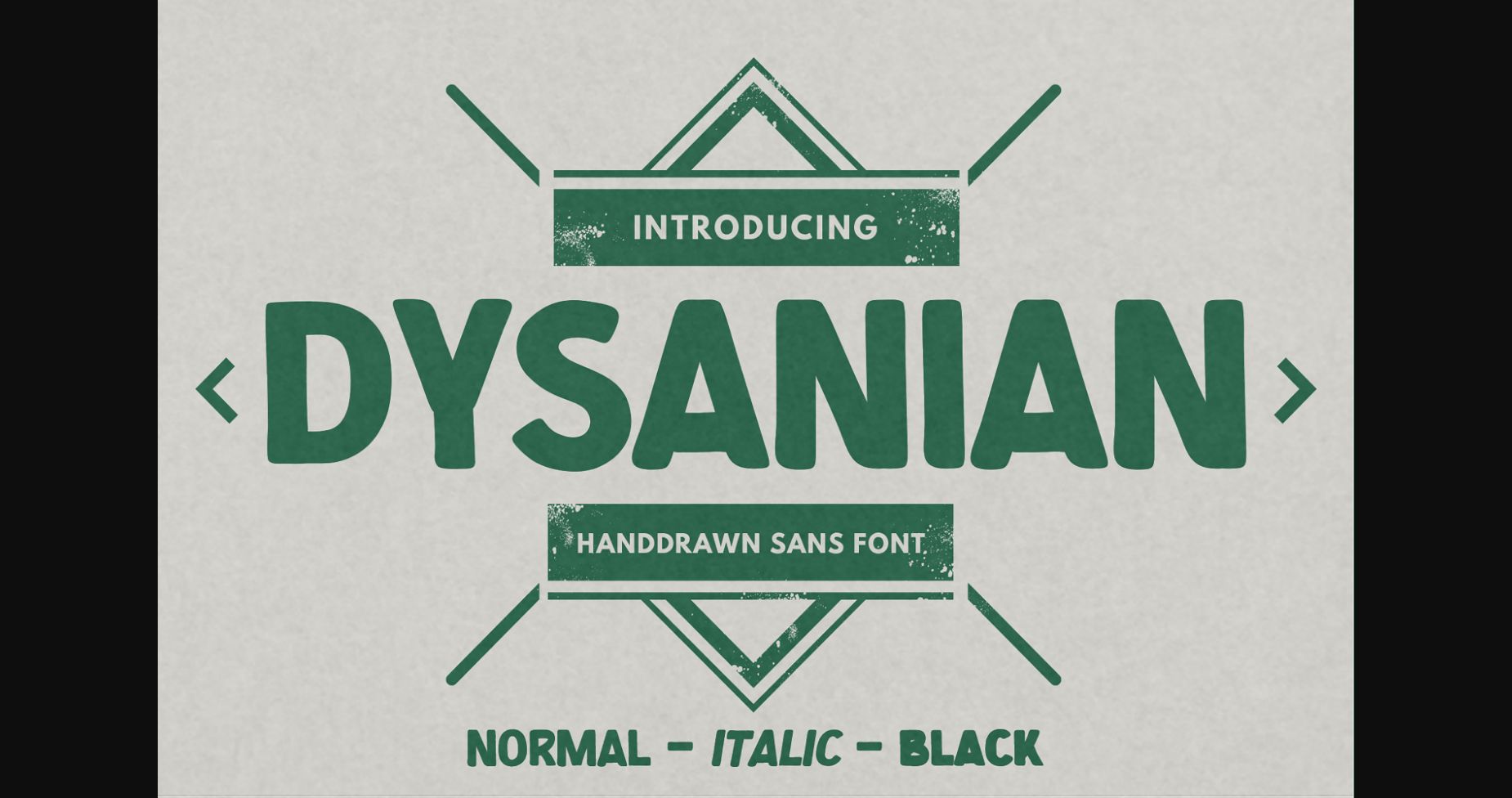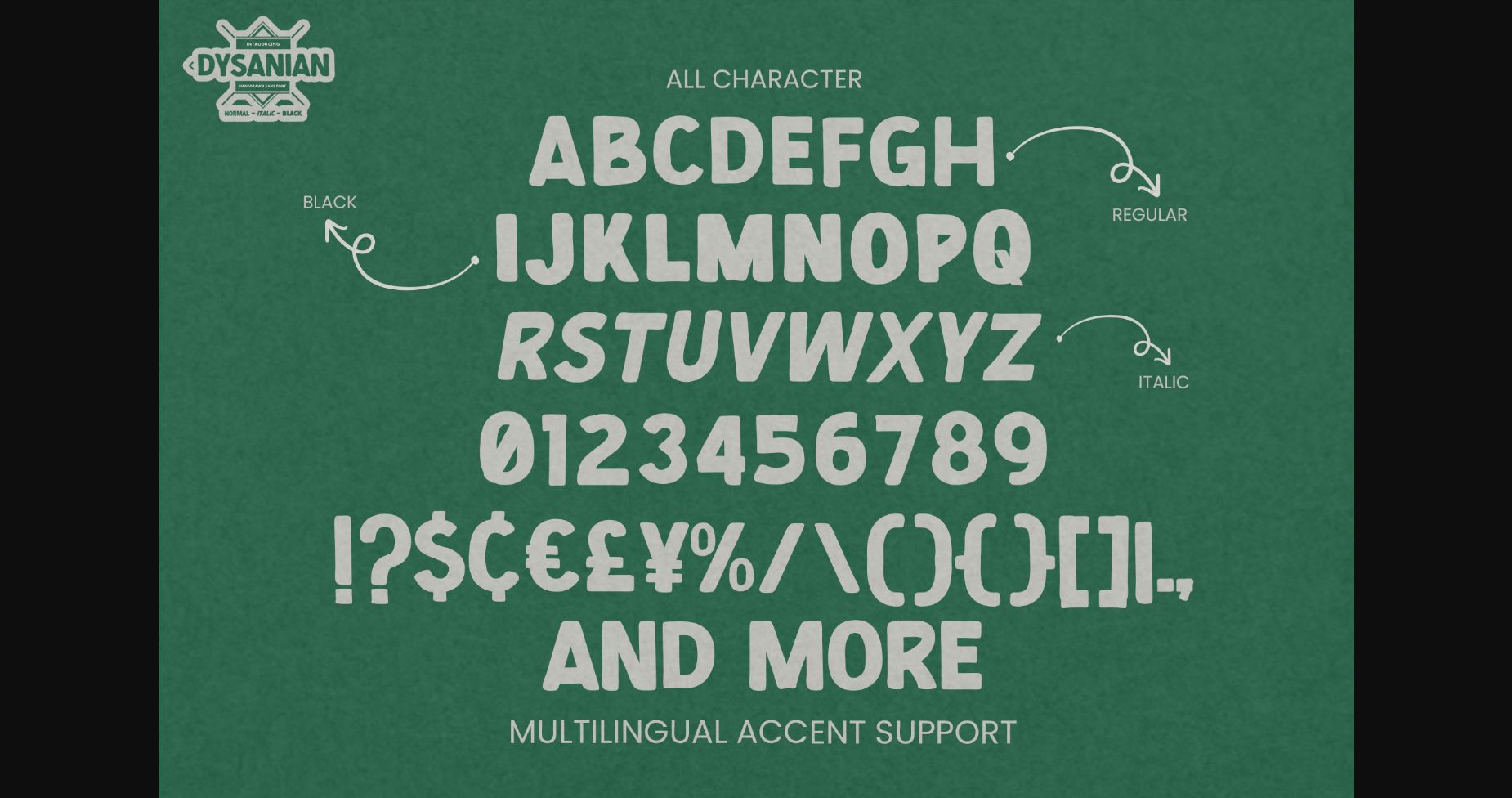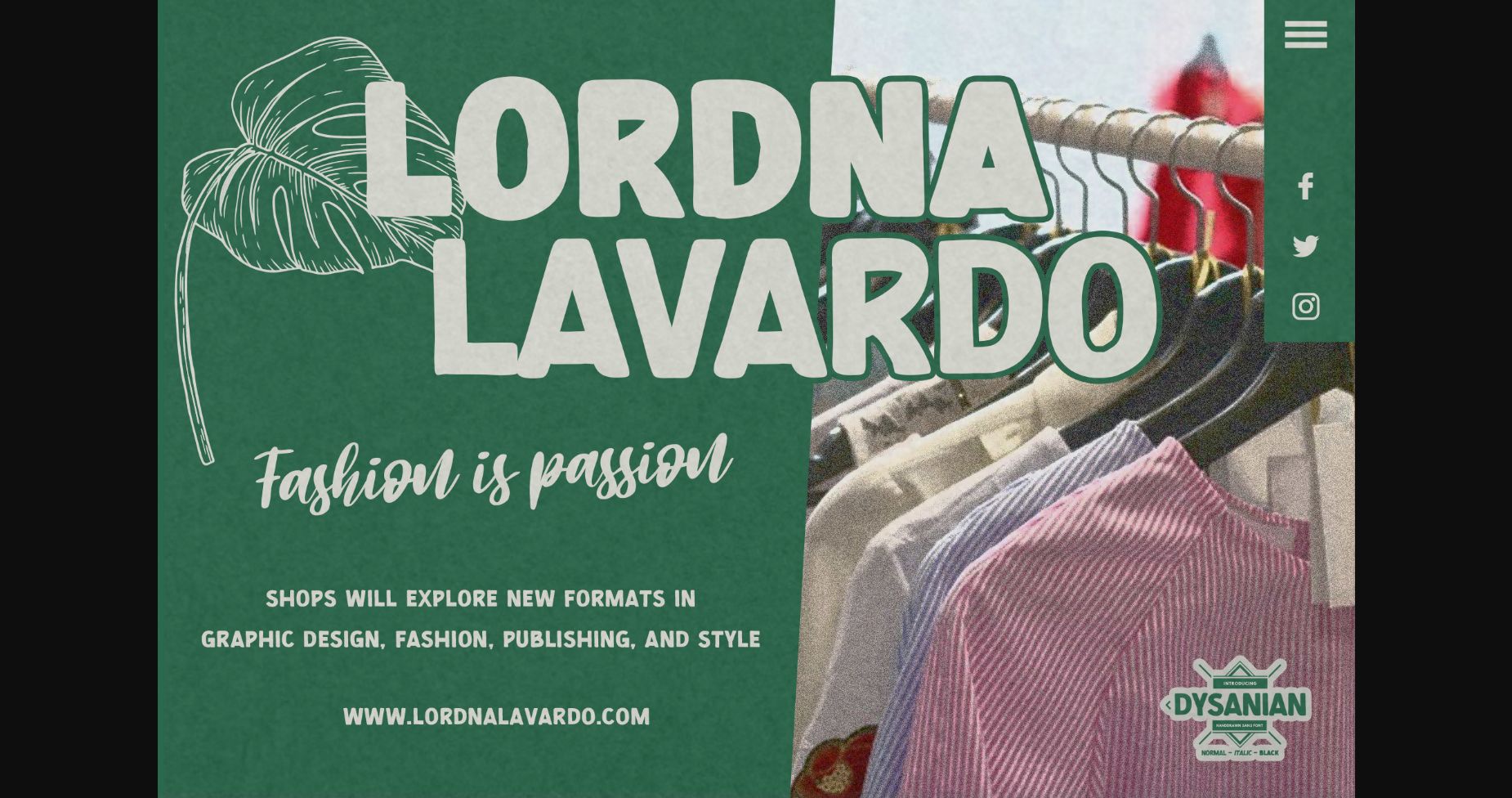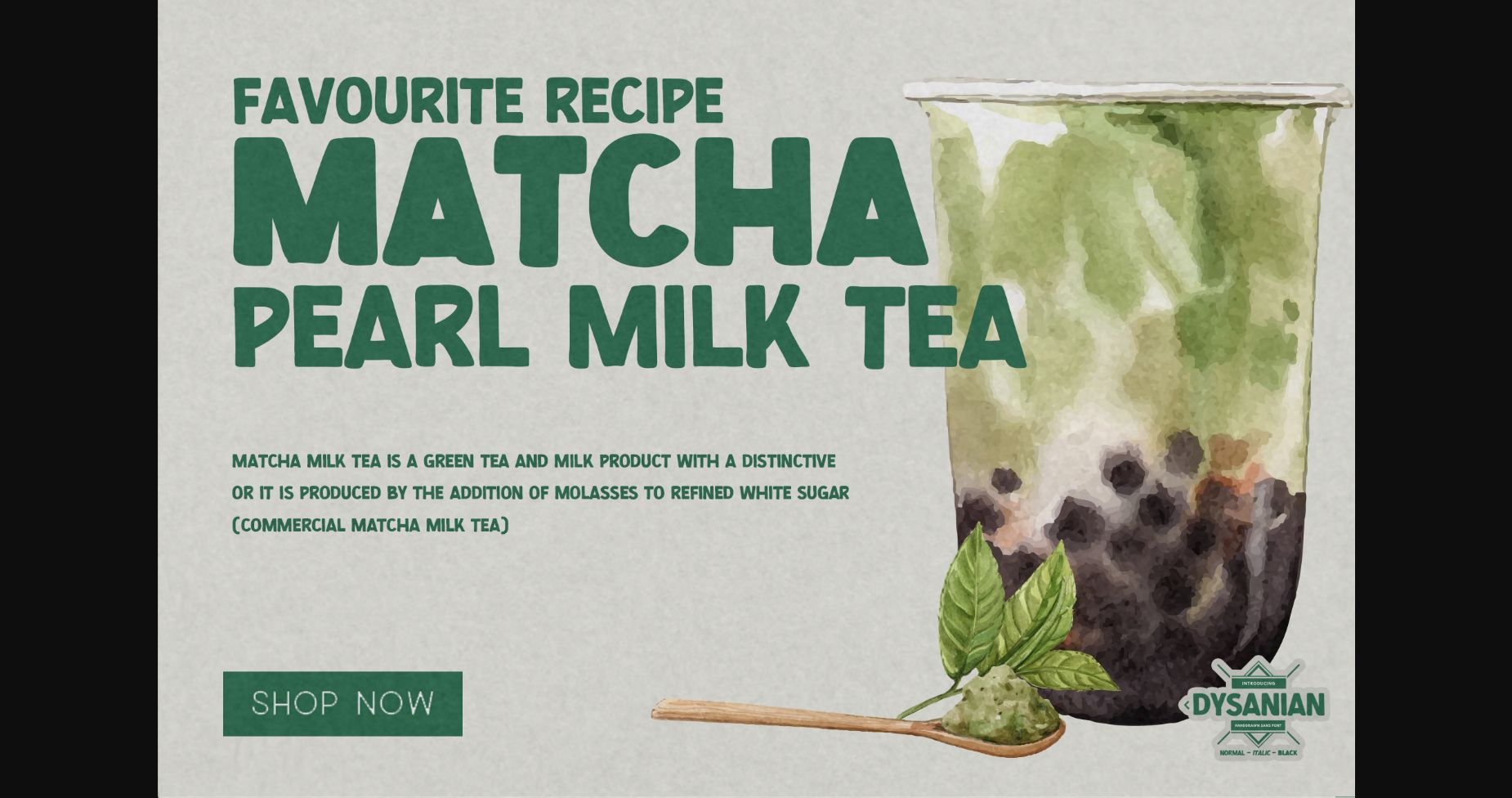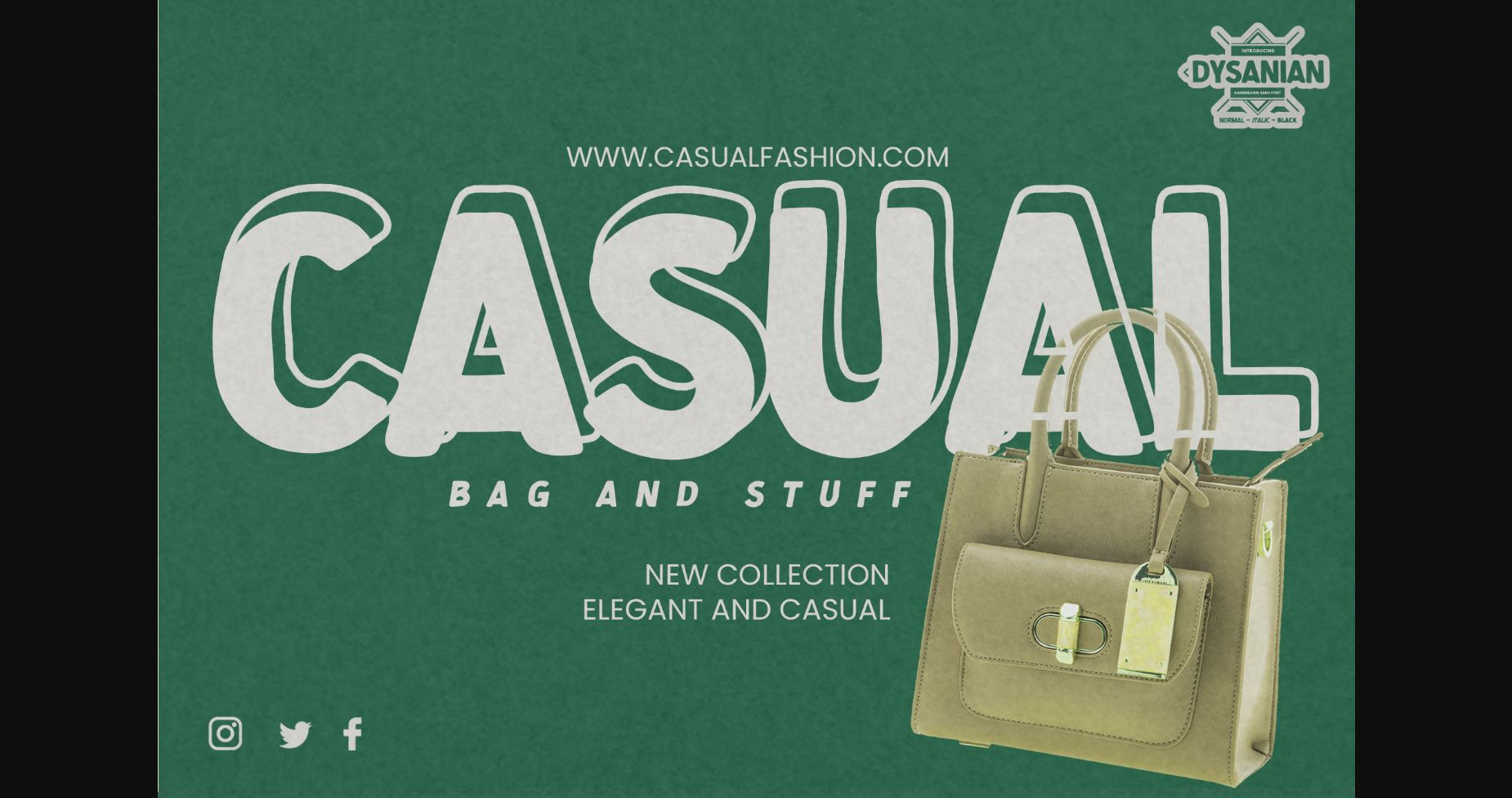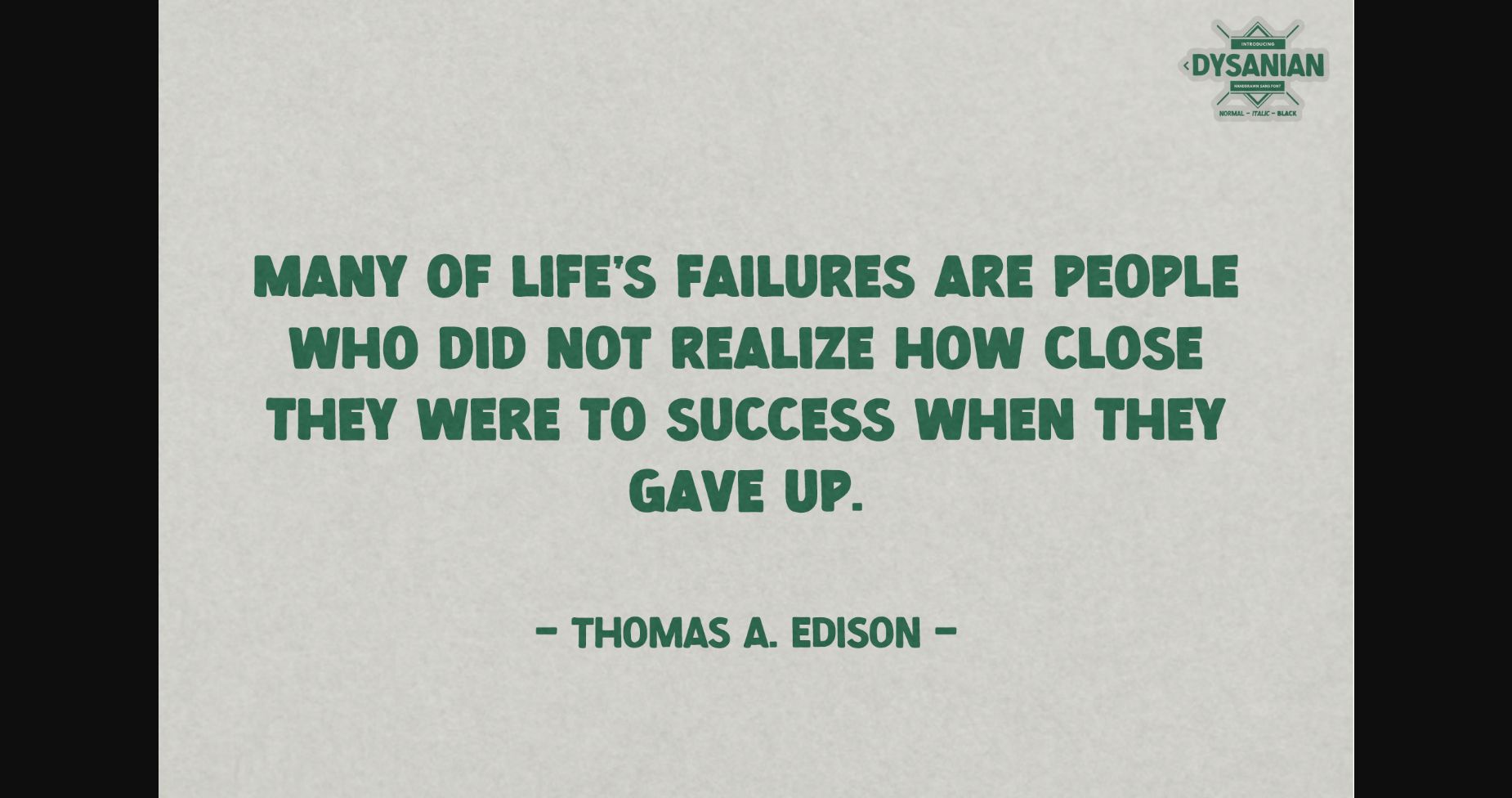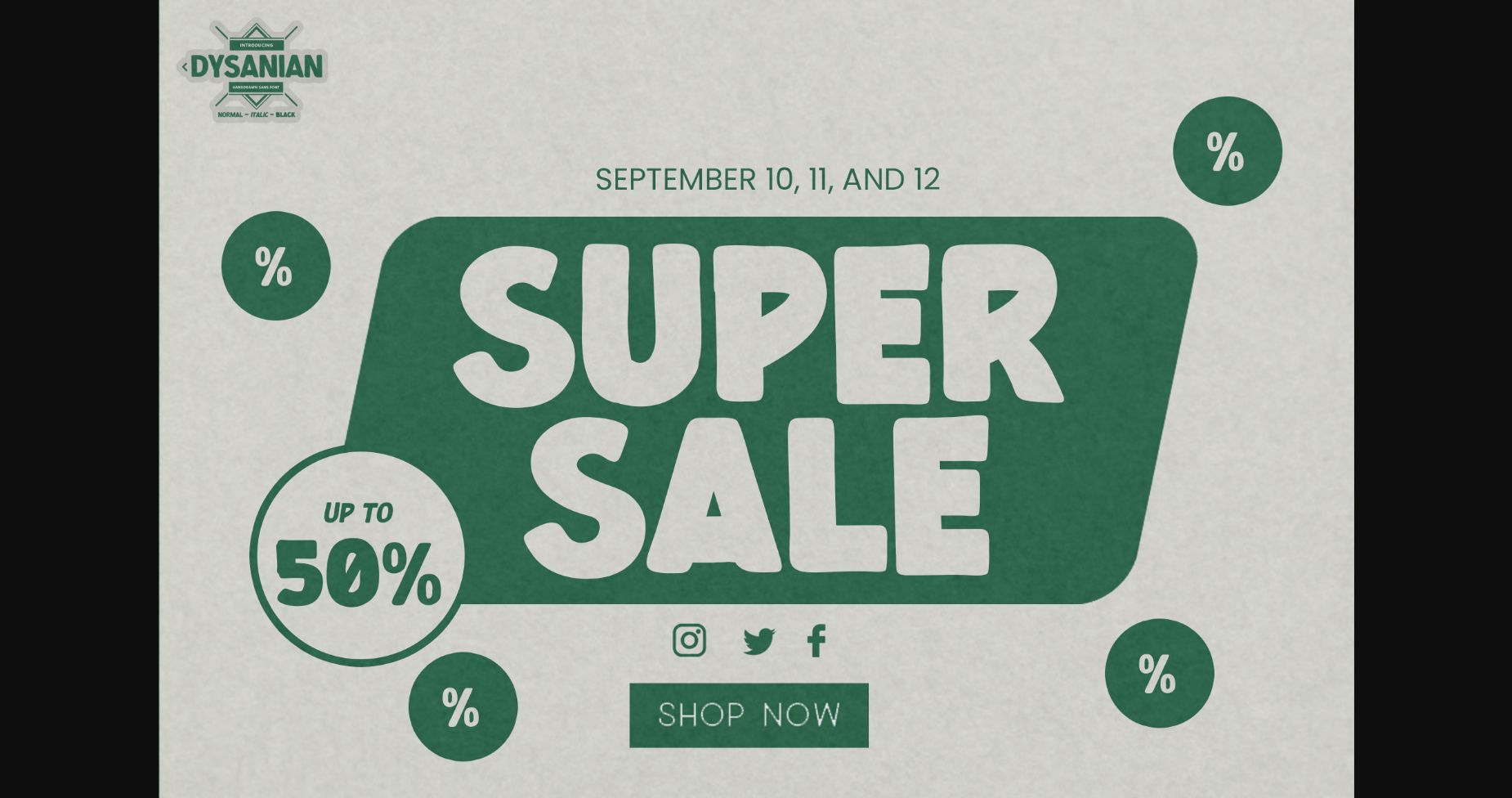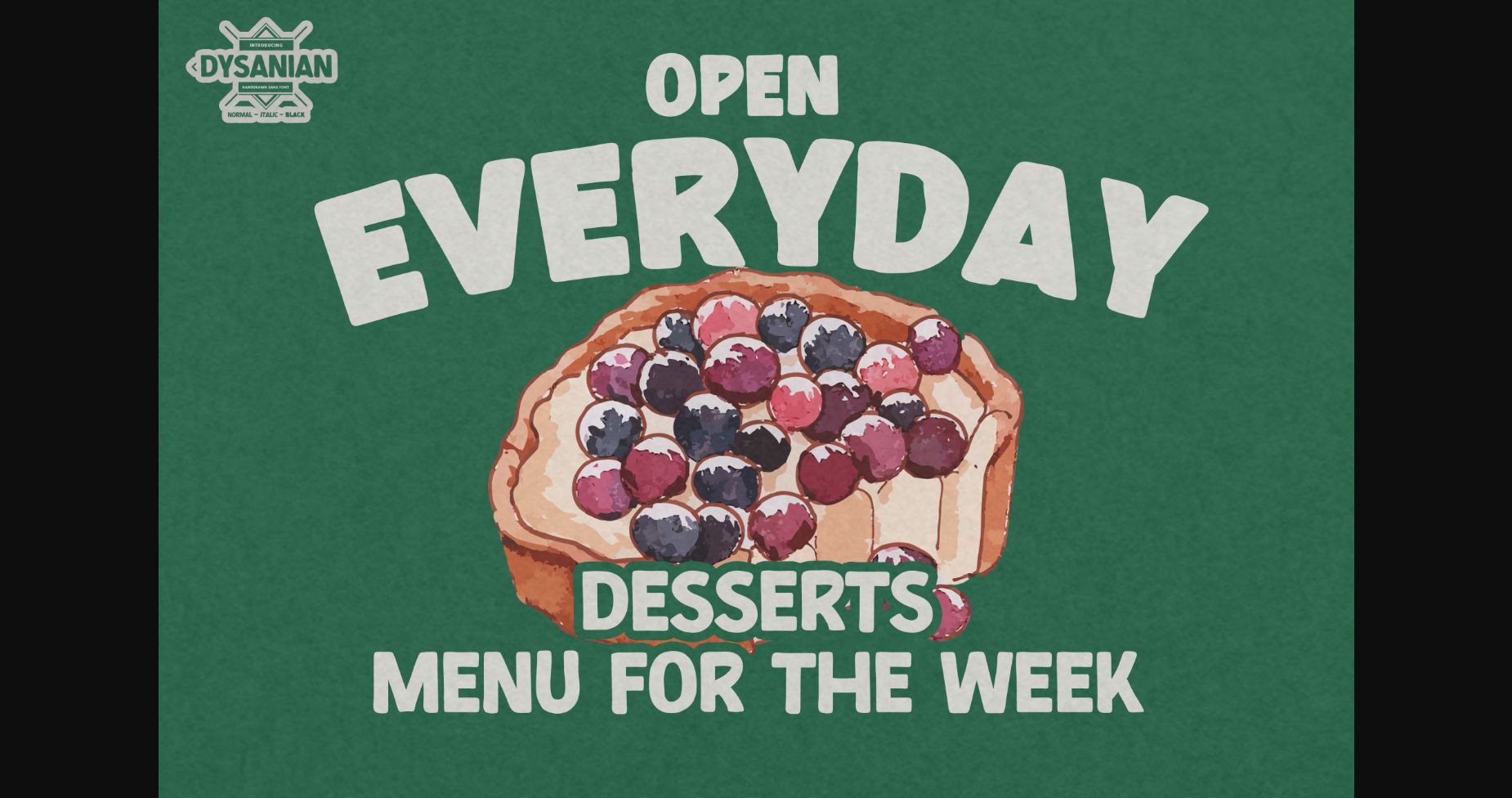
HomeSans Serif FontsDysanian Font Sans Serif Fonts Dysanian Font FacebookTwitterPinterestWhatsApp 1 of 10 ... Dysanian Font Poster 2... Dysanian Font Poster 3... Dysanian Font Poster 4... Dysanian Font Poster 5... Dysanian Font Poster 6... Dysanian Font Poster 7... Dysanian Font Poster 8... Dysanian Font Poster 9... Dysanian Font Poster 10... About Dysanian Font Dysanian is a stylish and simple sans serif font with a natural style and dramatic movement. Written casually and quickly, this font is perfect for projects that need authentic typography! DOWNLOAD NOW People also explored Claw White Tiger Font Simple Font Crack Style Font Dear Student Font Northblue Font Freshie Font Maron American Font Kitchen Font Shamanta Font 152 0 TagsDysanian Font Previous articleThe Orange FontNext articleWeird Words Font LEAVE A REPLY Cancel reply Comment: Please enter your comment! Name:* Please enter your name here Email:* You have entered an incorrect email address! Please enter your email address here Website: Save my name, email, and website in this browser for the next time I comment. Personal Use Free Super Caramel Font Personal Use Free Read more about this font Namskow Personal Use Free Read more about this font Amillina Monogram Personal Use Free Read more about this font 08 Underground Personal Use Free Read more about this font BLOG Using Fonts in Digital Marketing: Tips to Strengthen Your Brand Identity In the realm of digital marketing, every visual element plays a crucial role in shaping a brand's identity, and fonts are no exception. The... Exploring Font Trends Free vs Paid Fonts: Why Investing in Premium Fonts Is Worth It Transform Your Website: Elevate Your Typography with 7 Best Web Font Generators